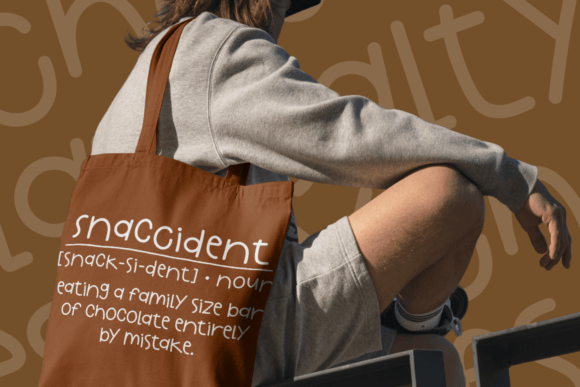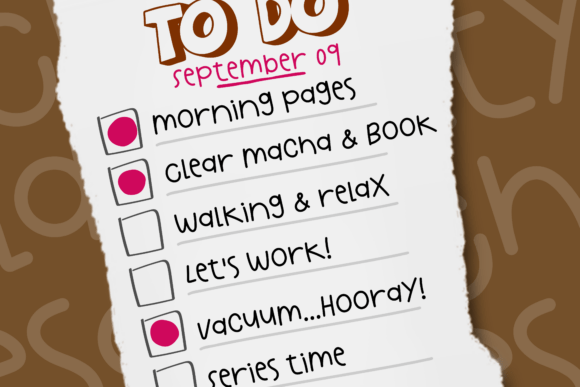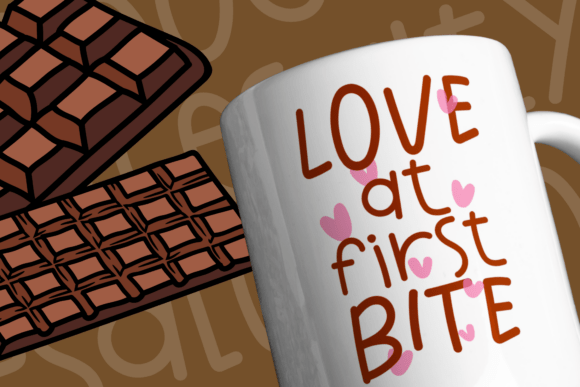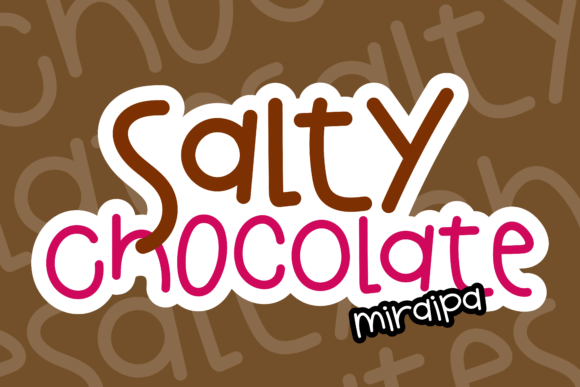
Introduction to Salty Chocolate Font
Introducing the β€œSalty Chocolate” a quirky and friendly Handwritten sans-serif font style.
This font is perfect for adding a cute touch to everything, from t-shirts and coffee mugs to hoodies and tote bags Also suitable for wonderful quotes, greeting cards, digital planners, and digital notes.